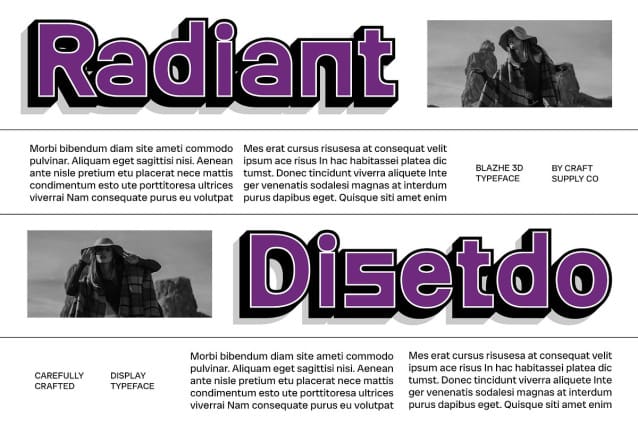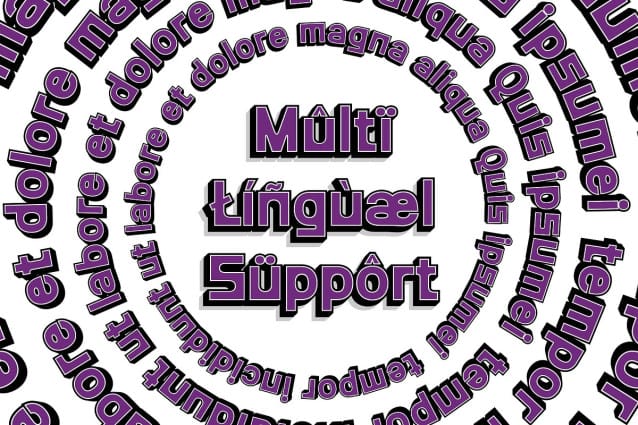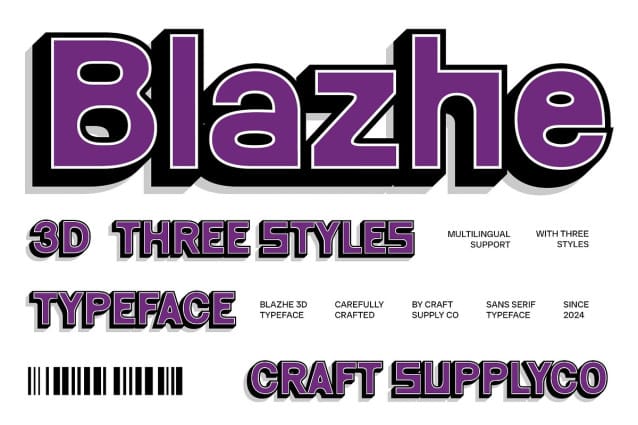
Blazhe 3D Font
Blazhe 3D Font is a modern sans serif font characterized by its tech-inspired design, featuring a clean and futuristic look that resonates with contemporary aesthetics. Its sharp lines and well-defined angles create a polished and innovative impression, making it an ideal choice for projects that seek to convey sophistication and forward-thinking. The font embodies a spirit of progress, perfect for brands aiming to position themselves at the forefront of their industries.
Captivating 3D Effect for Enhanced Visual Dimension Enhanced by a captivating 3D effect, Blazhe 3D adds an extra layer of visual dimension that elevates its presence in any design. This three-dimensional quality not only draws the eye but also creates a sense of depth that engages viewers, making the font stand out in a crowded visual landscape. The interplay of light and shadow in the 3D rendering enhances its modernity, providing a dynamic quality that is sure to capture attention and create memorable impressions.
Showcasing Modern Professionalism With its dynamic and engaging appearance, Blazhe 3D not only captures attention but also conveys a sense of modern professionalism. Its design elements reflect a commitment to quality and innovation, making it suitable for projects that require a strong visual statement.